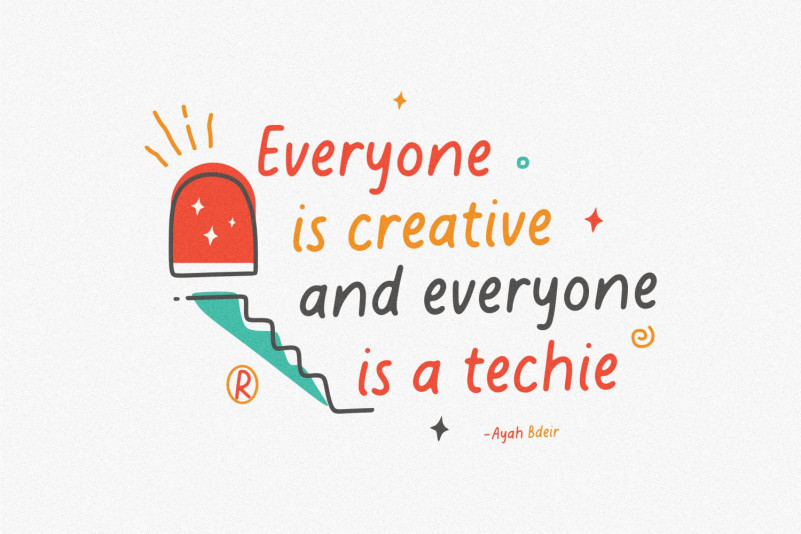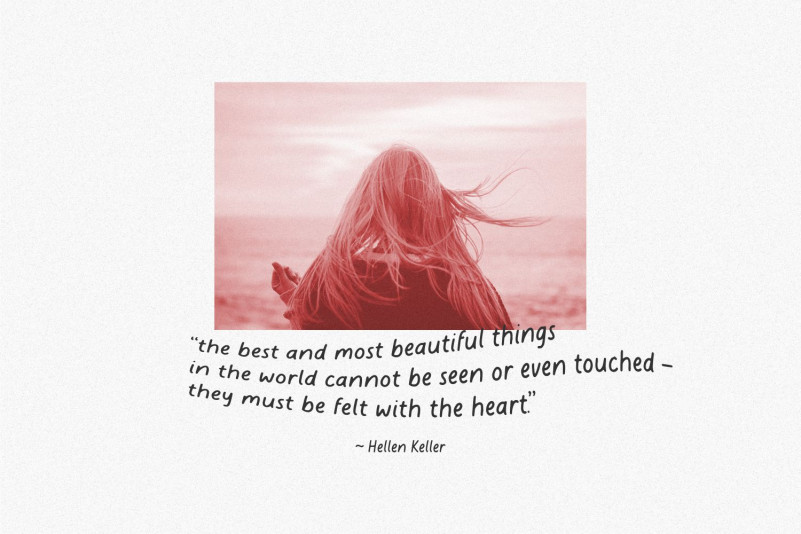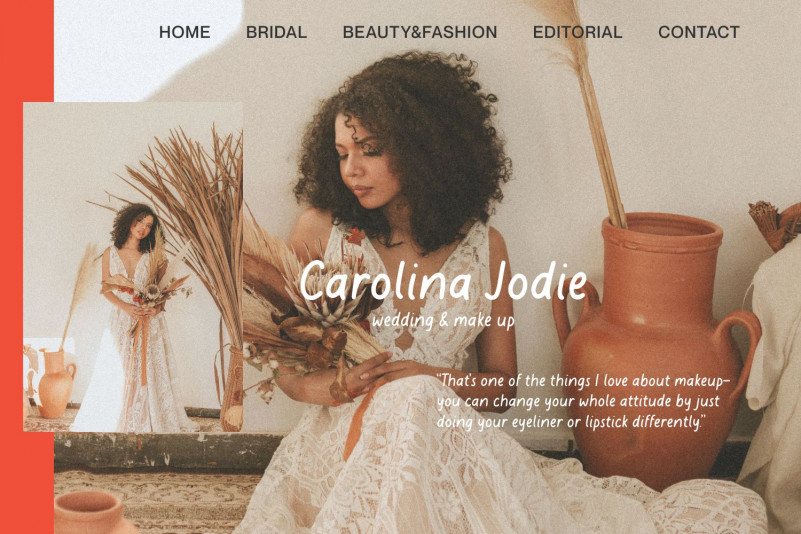
Moonlily Display Font
This is a cute and colorful display font. It embodies playfulness and authenticity and is the perfect choice for any children activity or school project.